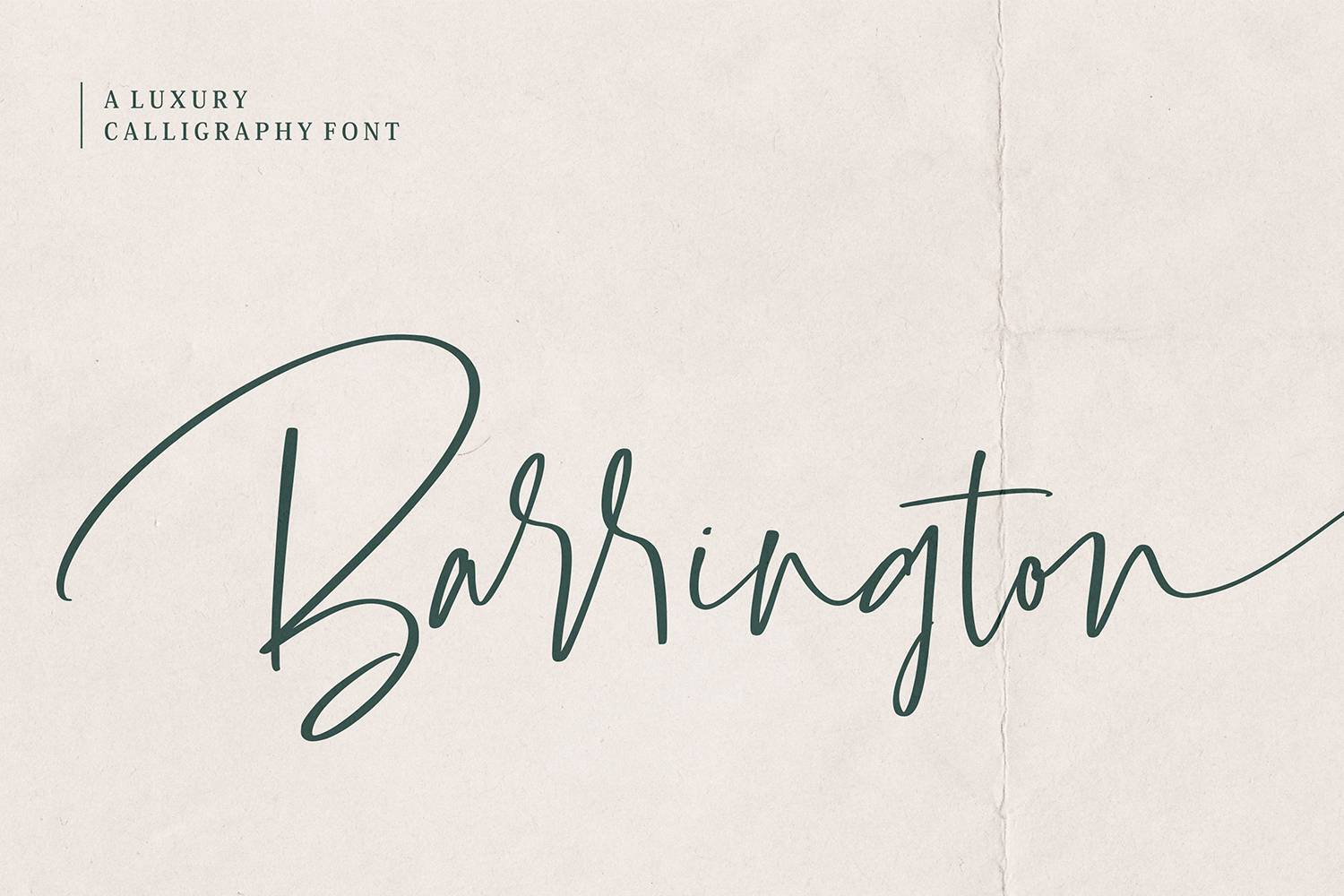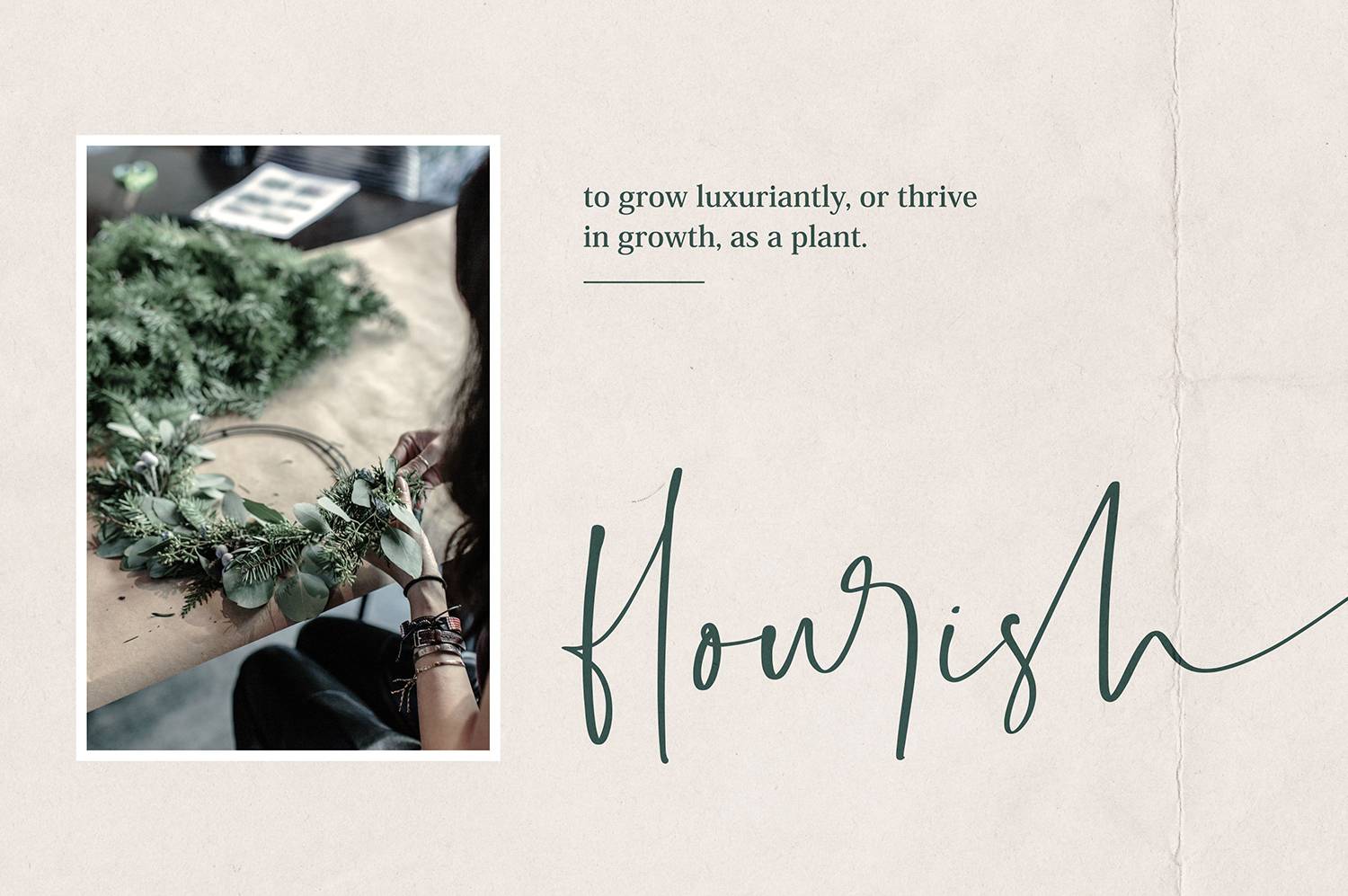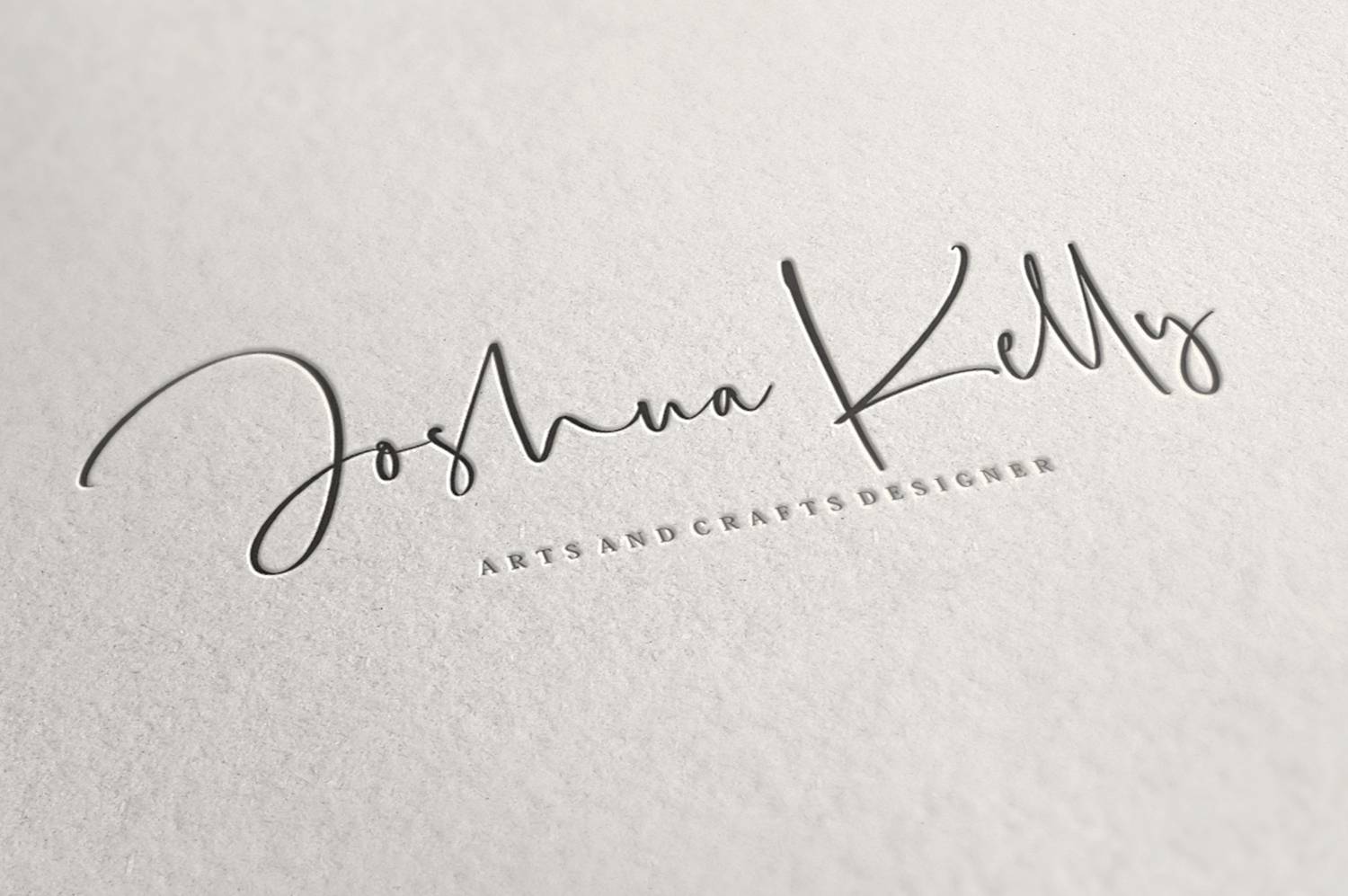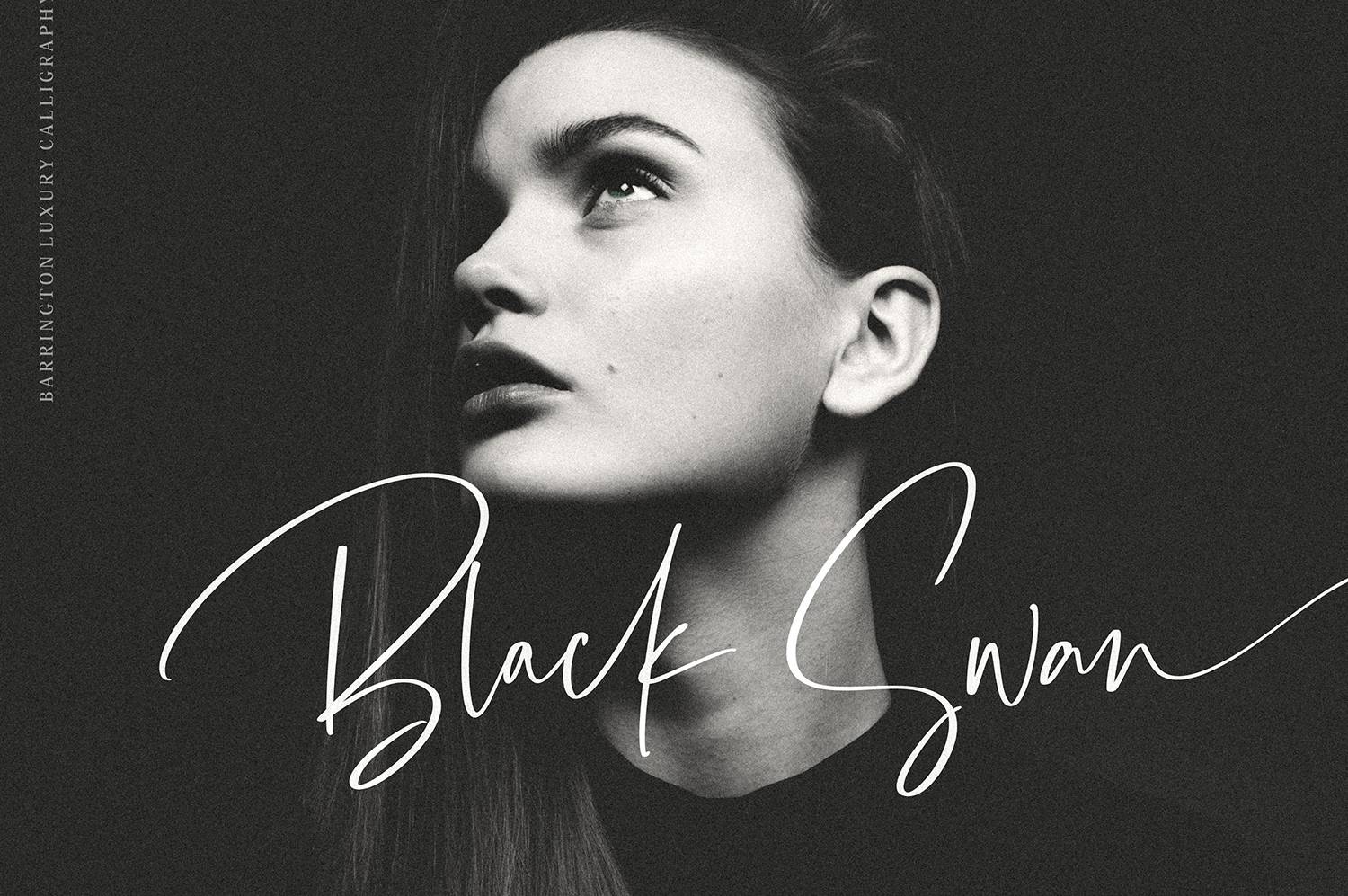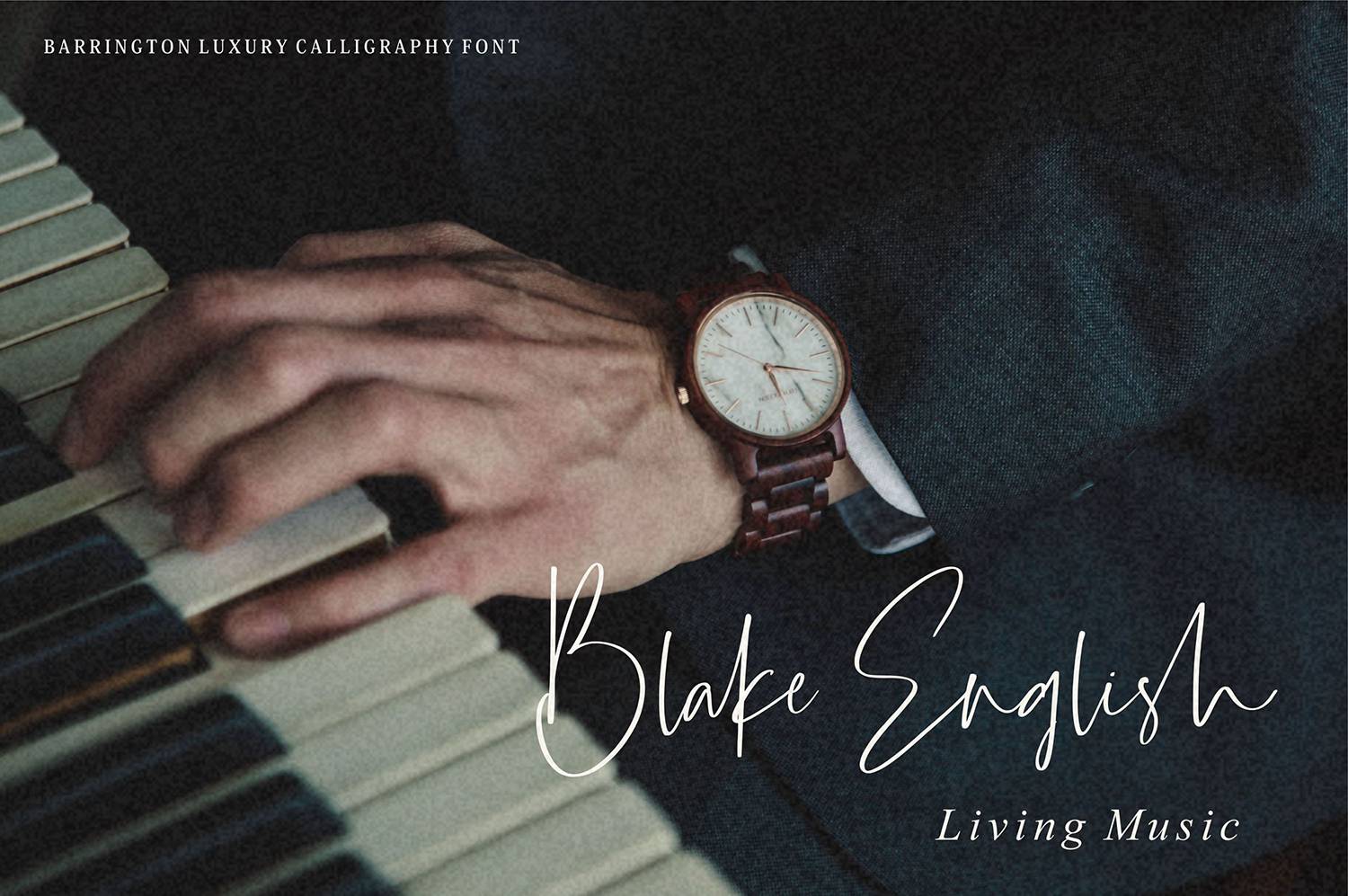
Barrington is a delicate handwritten script font characterized by its tall, thin letterforms and a playful, flowing style that feels both personal and artistic. Its fine lines and irregular strokes give it an elegant yet informal charm, making it ideal for creative branding, invitations, and decorative text where a touch of individuality and grace is desired. This font works beautifully for projects that need a light, airy, and sophisticated handwritten feel.
Barrington Font
About Barrington Font